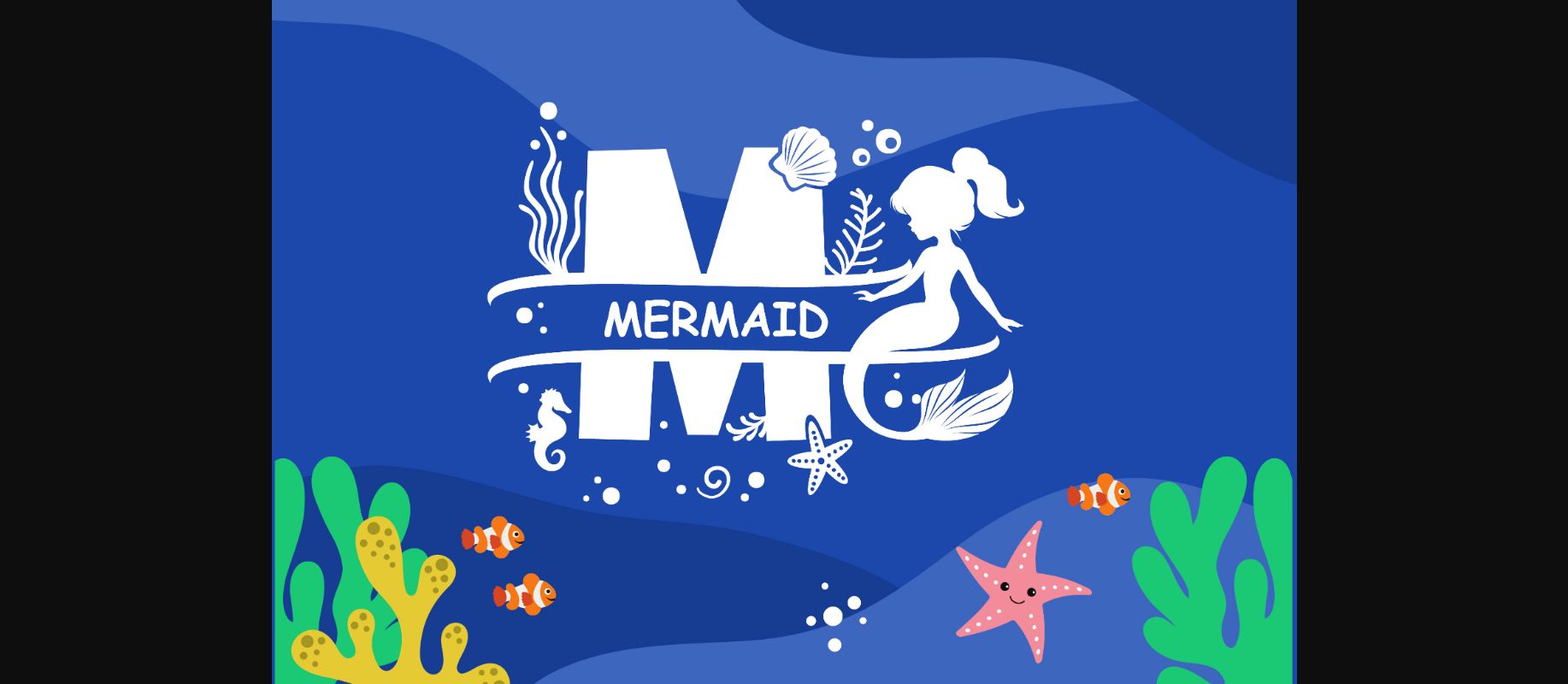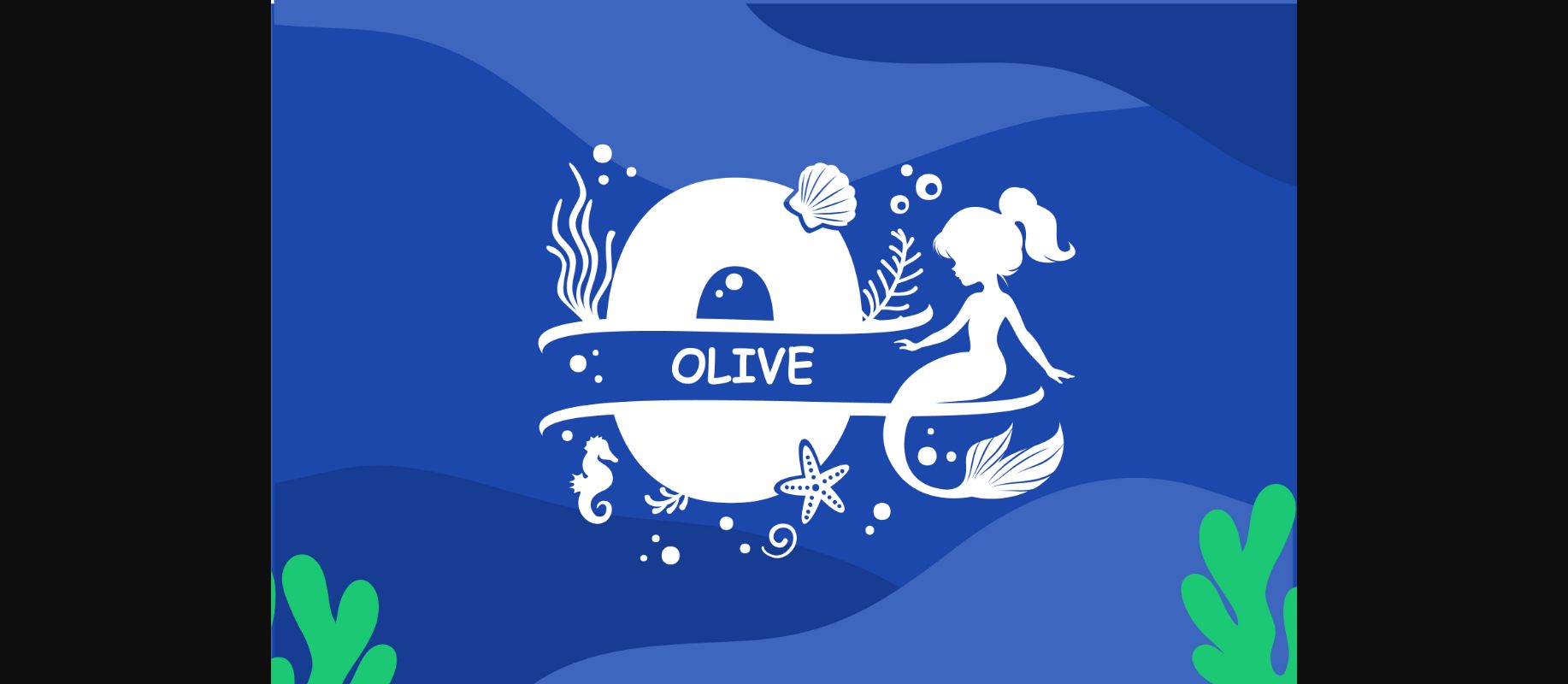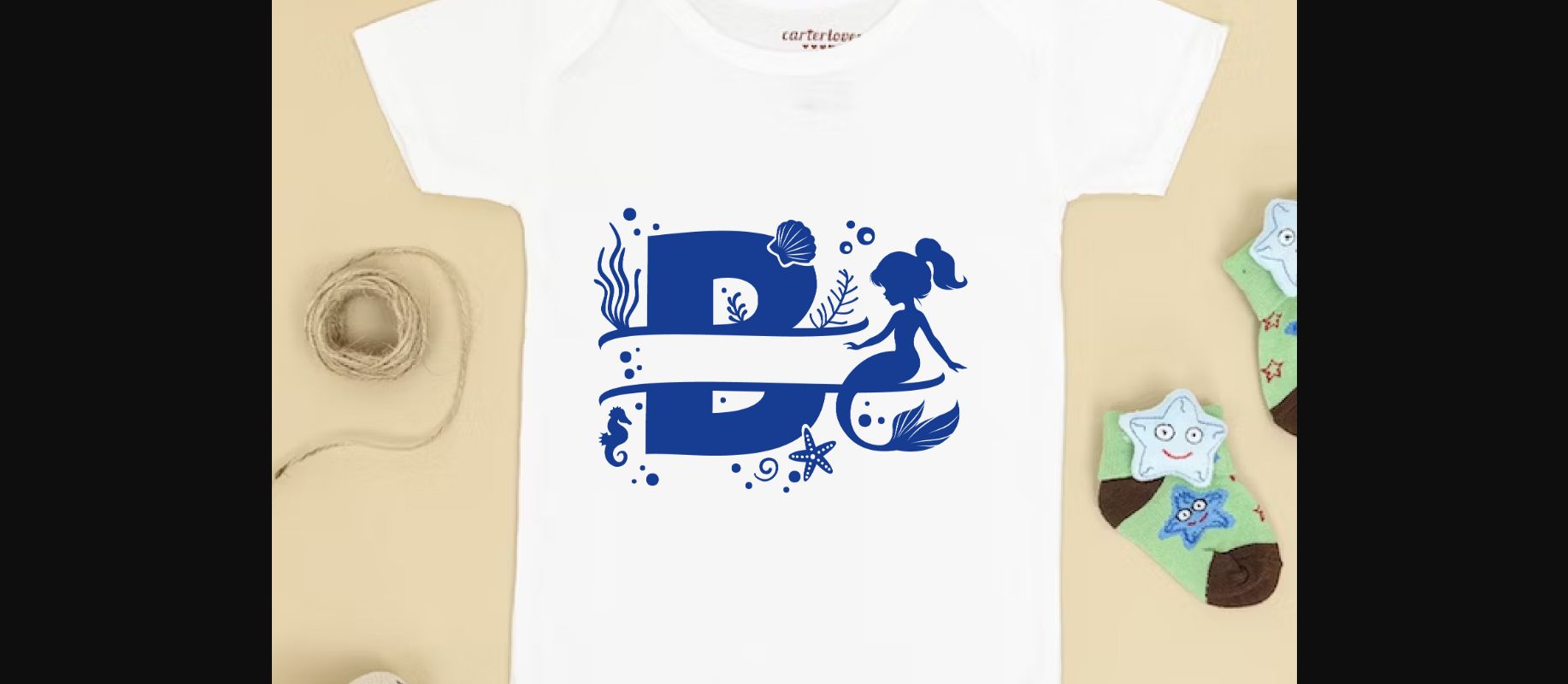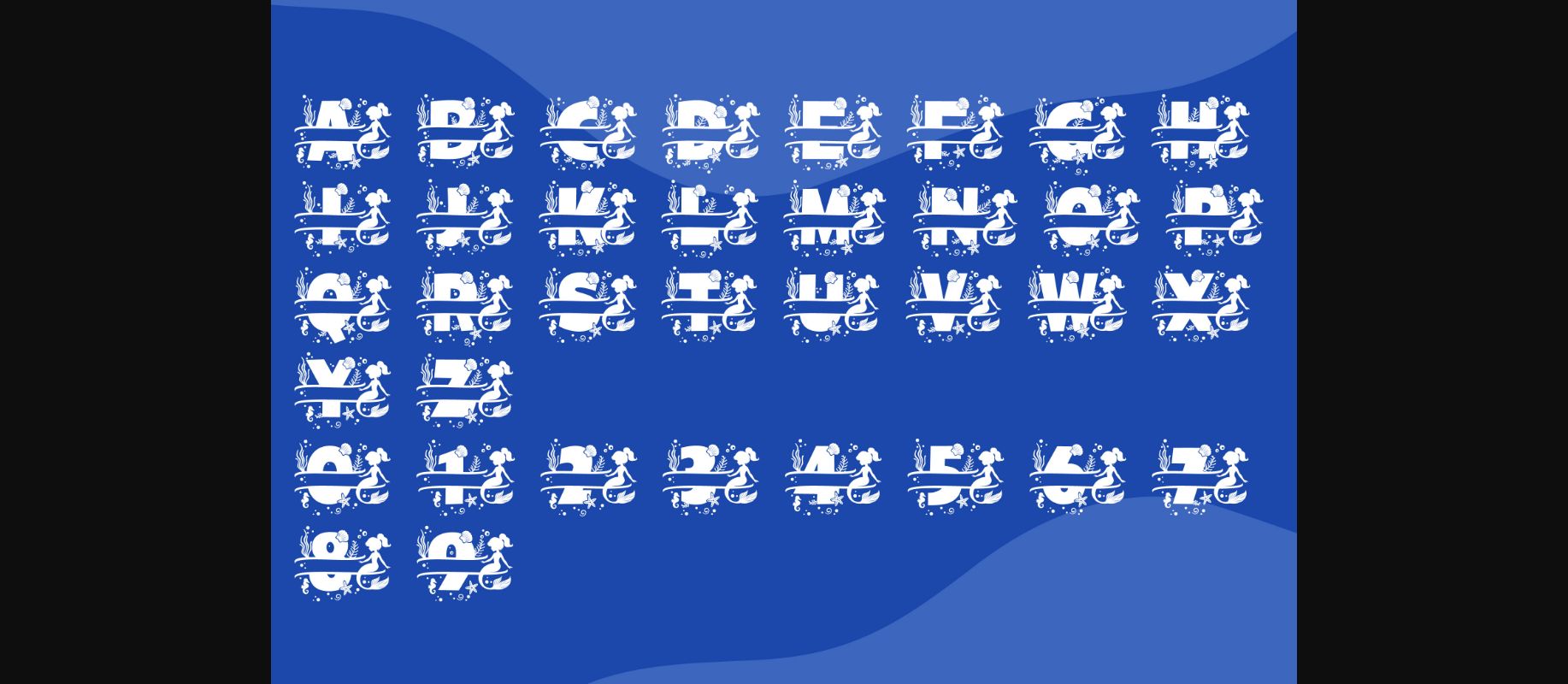
Little Mermaid Monogram Font
About Little Mermaid Monogram Font
Little Mermaid is themed monogram, ideal for children’s books, apparel, and more. Dominated by a large and playful alphabet. The design incorporates a silhouette of the Little Mermaid as part of the letter, creating a seamless integration of character and typography. Surrounded by oceanic elements like starfish, bubbles, and seaweed, the monogram is set against a deep blue background, evoking the enchanting undersea world.